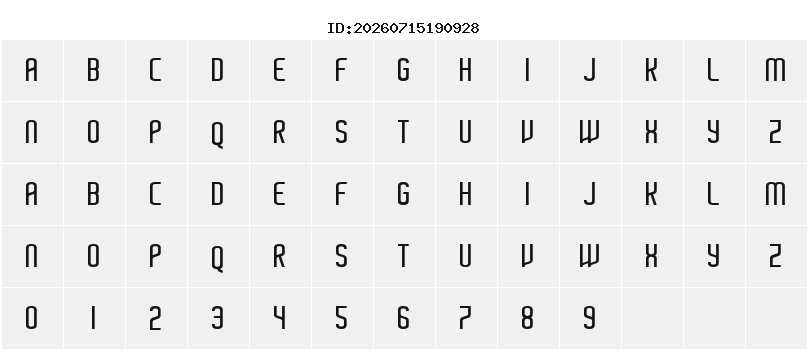
Ayherre Preview
• Font Name: Ayherre
• Full Font Name: Ayherre
About Ayherre.ttf
Ayherre.ttf is a modern, elegant sans-serif font designed for ultimate readability and visual harmony. Perfect for branding, headlines, web design, and print materials.